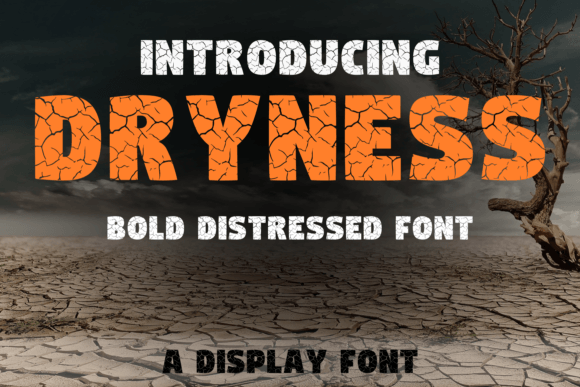
Unleash the captivating power of Dryness Font, a vibrant display typeface that will ignite your creative spirit and elevate your designs to new heights. Immerse yourself in a world of vintage charm, where nostalgia intertwines with modern elegance.
Dryness Font was meticulously crafted to evoke the essence of bygone eras, with its intricate details and timeless appeal. Its bold strokes and graceful curves dance harmoniously, creating a visual masterpiece that commands attention. Whether you're a seasoned designer or a budding creative, Dryness Font will effortlessly transform your projects into works of art.
Indulge in the versatility of Dryness Font, a typeface that effortlessly adapts to a myriad of design styles. Its vintage charm lends itself perfectly to retro-inspired projects, while its modern undertones ensure it remains relevant in today's digital landscape. From captivating posters and alluring logos to mesmerizing social media graphics, Dryness Font empowers you to express your individuality in countless ways.
Immerse yourself in a world of endless possibilities with Dryness Font. Let your creativity soar as you craft stunning wedding invitations that evoke a touch of nostalgia, create eye-catching flyers that demand attention, or design captivating book covers that transport readers to another era. The power of Dryness Font lies in its ability to transform the ordinary into the extraordinary, leaving an unforgettable impression on your audience.